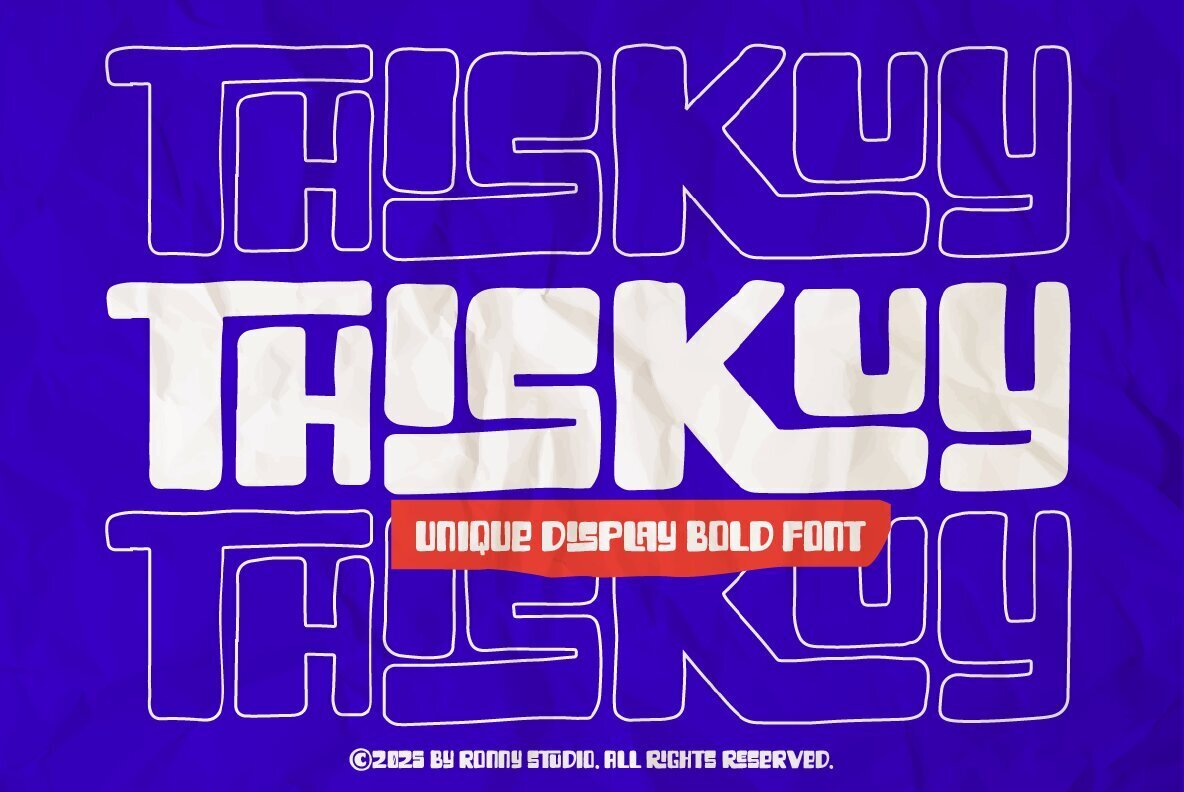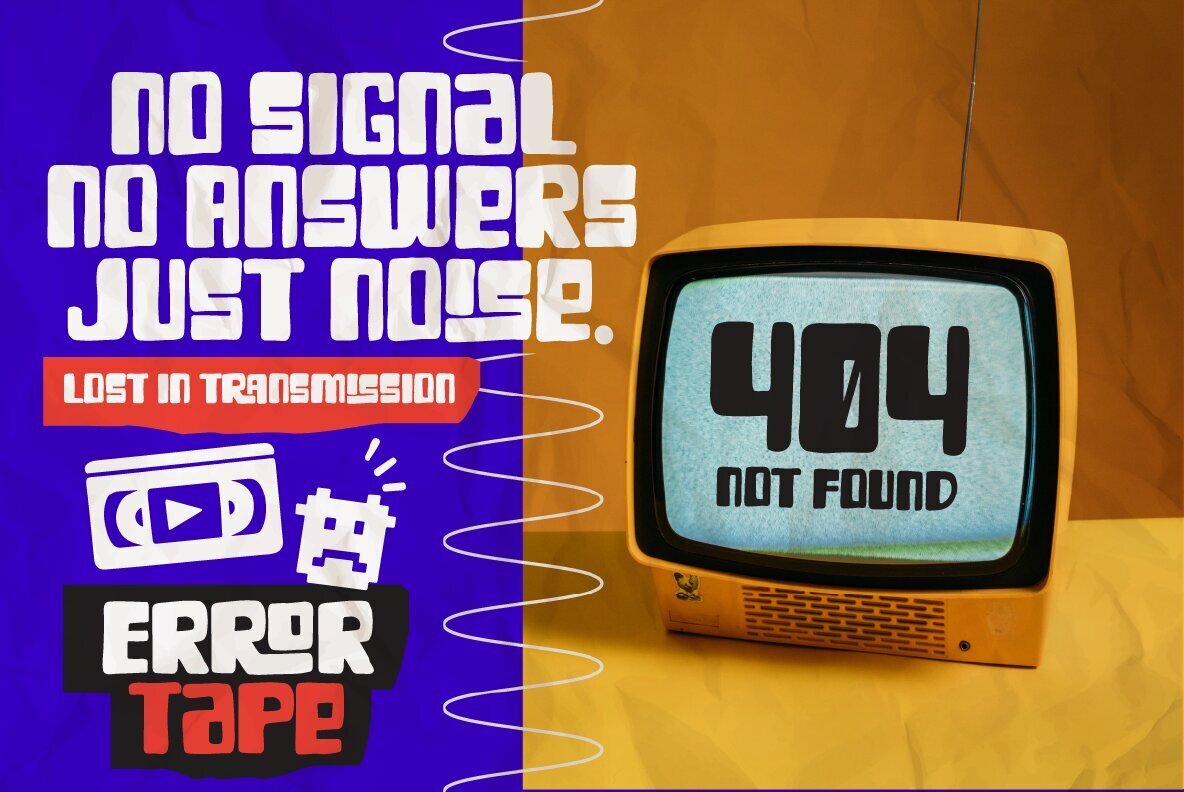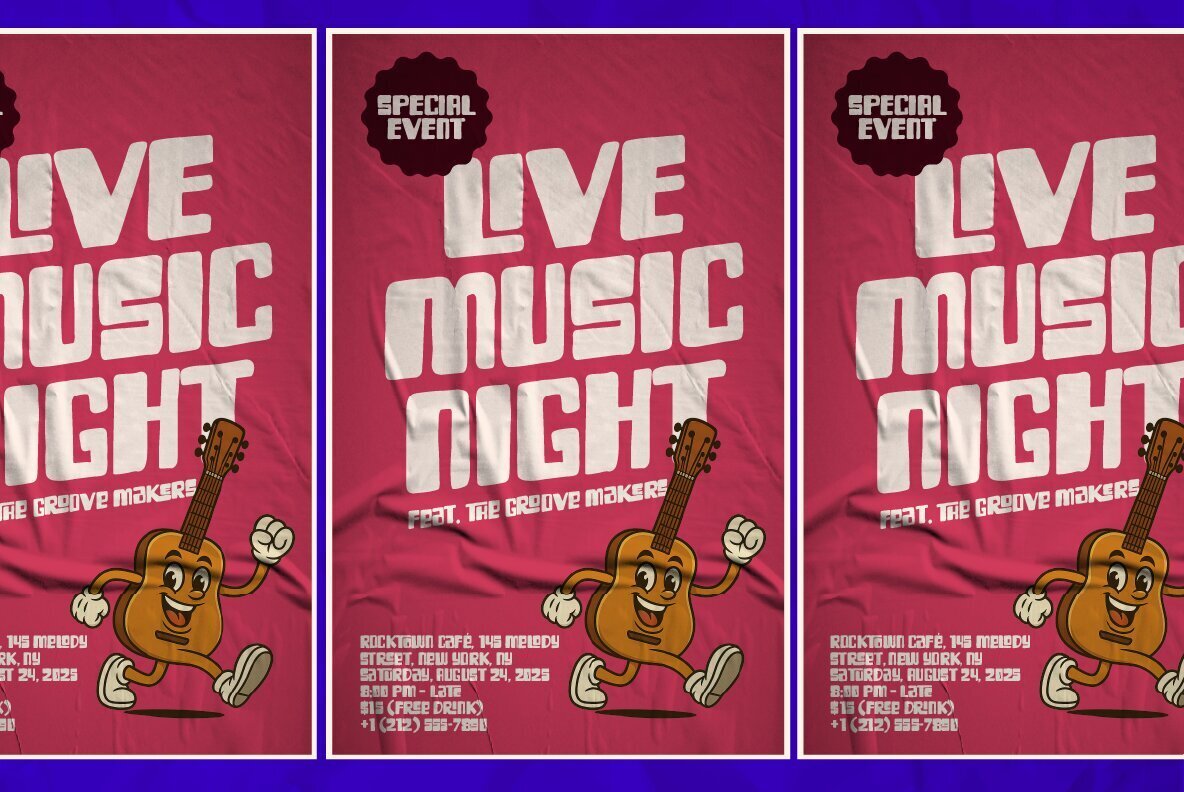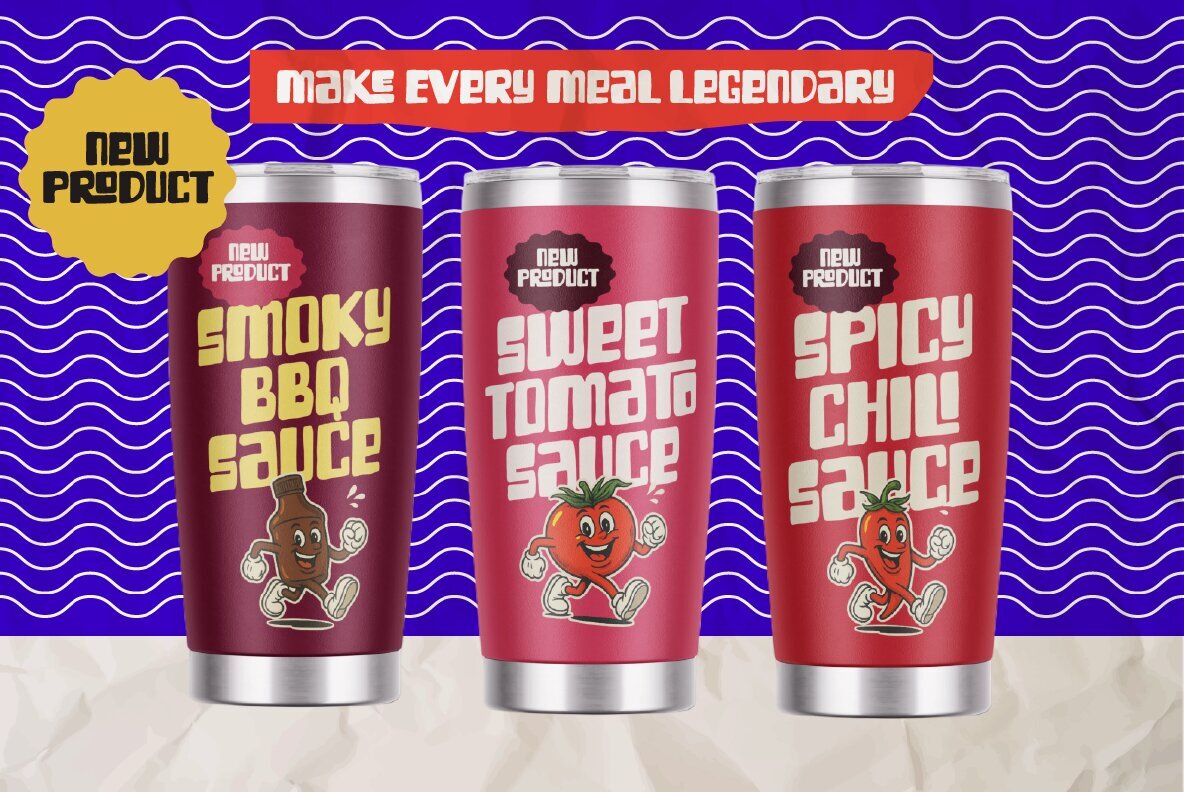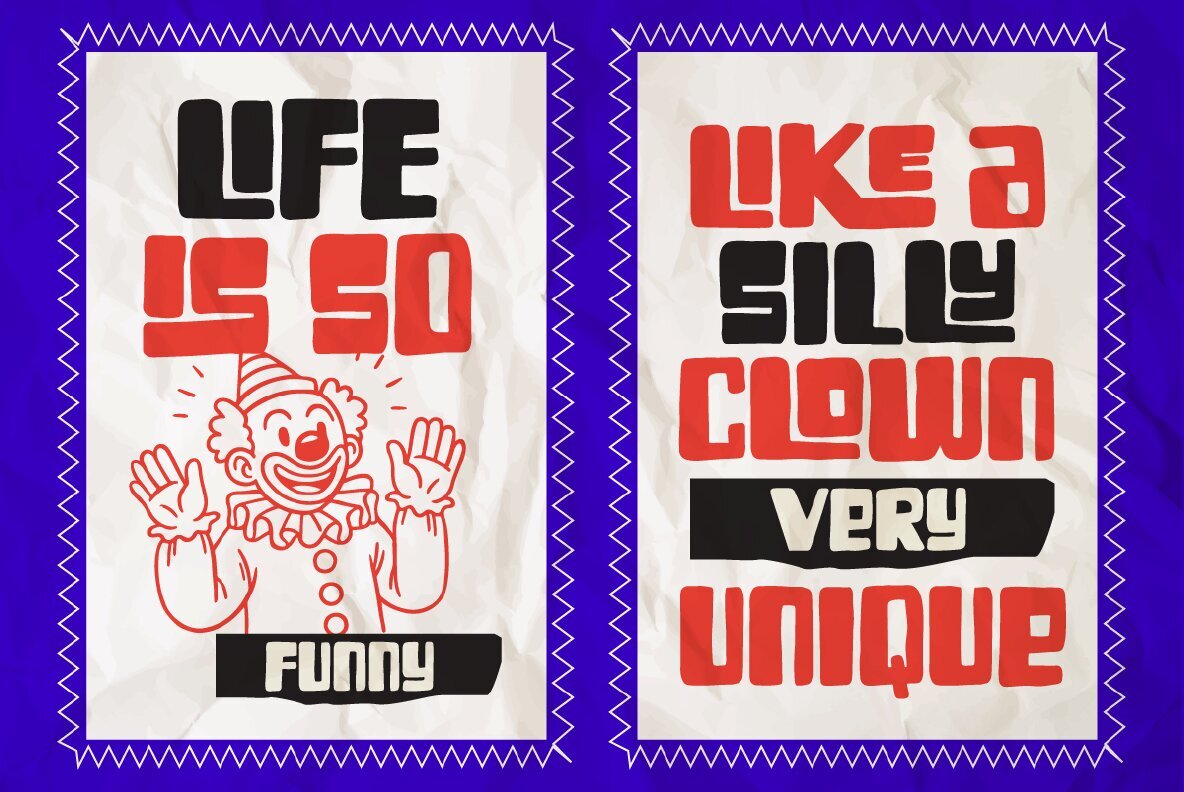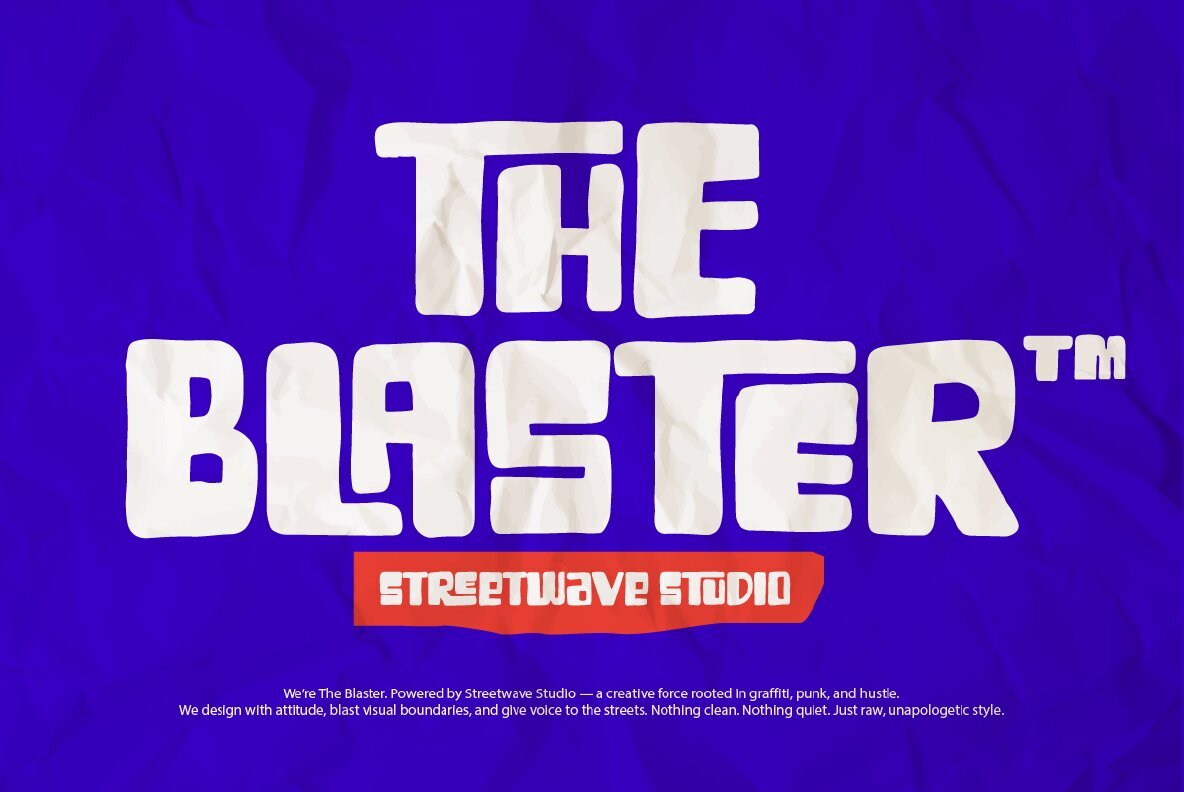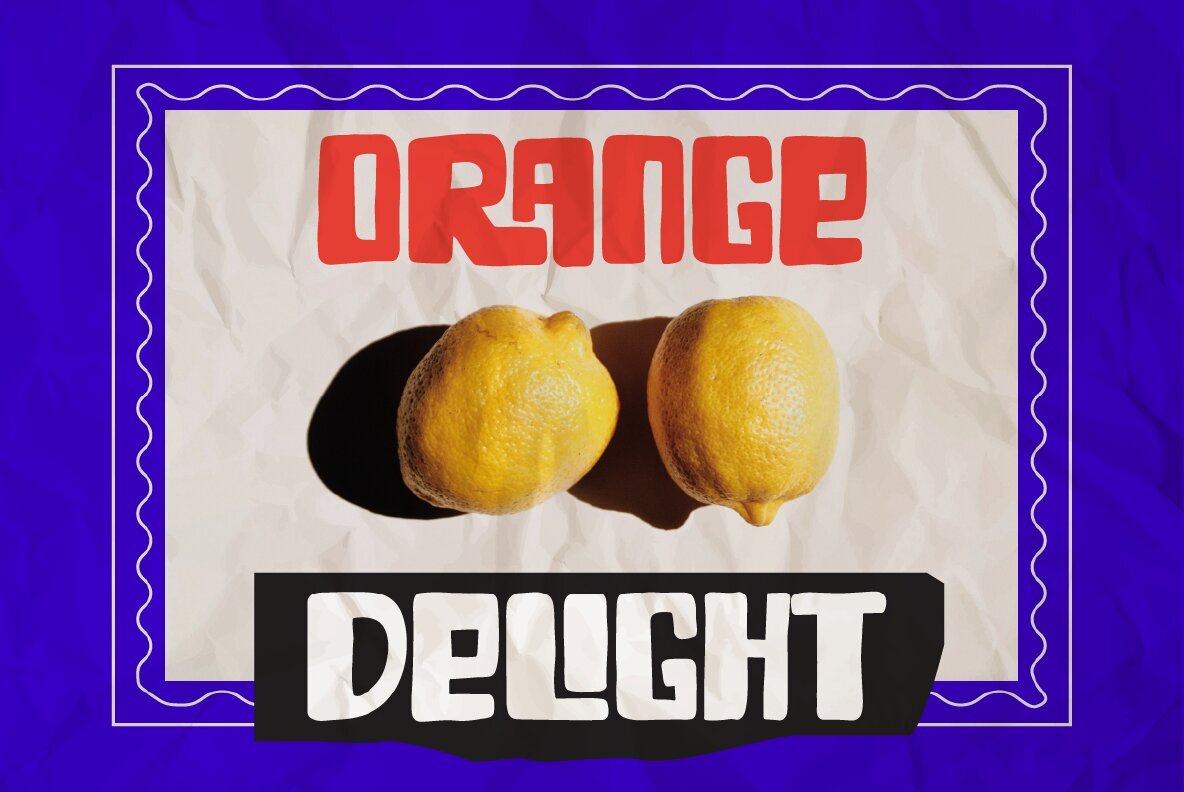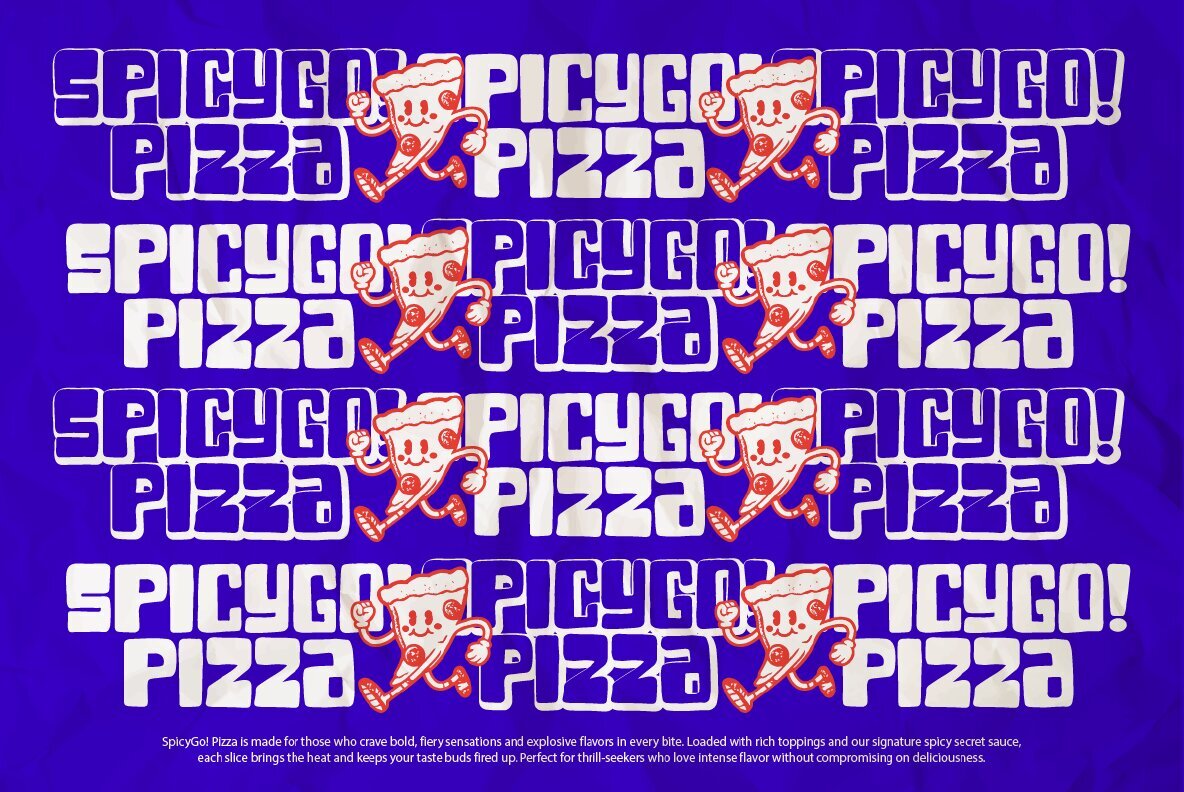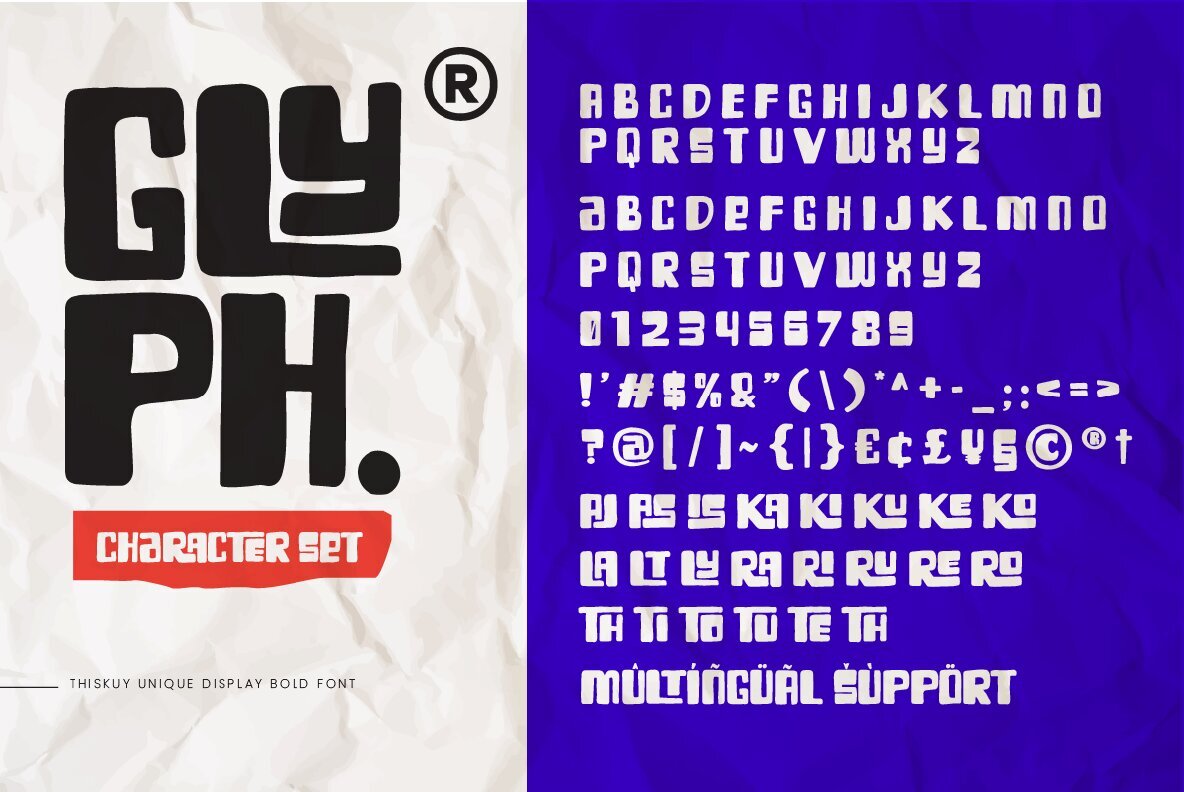
Thiskuy Font
Thiskuy
Thiskuy stands out as a bold and playful display font, seamlessly blending modern curves with a hint of retro charm. Its distinctive shapes make it ideal for creating eye-catching headlines, striking posters, and impactful branding. This font's robust personality is perfect for transforming ordinary designs into memorable visual experiences. With an extensive array of unique ligatures, Thiskuy offers a wealth of creative possibilities. Each word crafted using this font feels fresh, energetic, and personalized, whether you're aiming for a quirky vibe or a bold statement. Thiskuy's versatility ensures it fits various design needs.Thiskuy: A Retro-Inspired Display Font